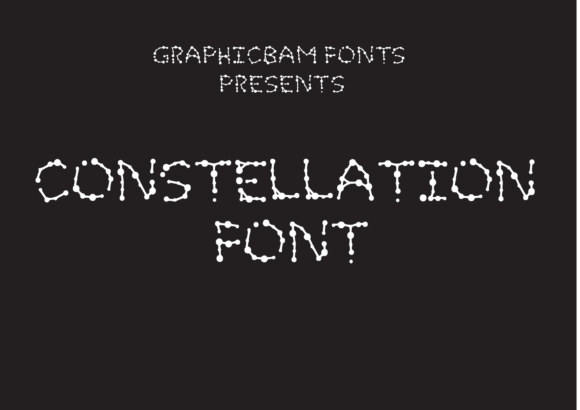
Are you seeking a font that ignites your creativity and propels your designs to new heights? Look no further than Constellation Font, the dazzling display font that transforms your words into a celestial spectacle. With its enchanting characters resembling a star-studded sky, this font will cast a spell on your audience, leaving them captivated by its ethereal beauty.
Crafted by the ingenious minds at GraphicsBam Fonts, Constellation Font is a masterpiece meticulously designed to elevate your designs. Its captivating glyphs, reminiscent of twinkling stars, bring a touch of whimsy and wonder to your creations. Whether you're crafting eye-catching logos, captivating social media posts, or enchanting invitations, Constellation Font will weave its magic, leaving a lasting impression on all who behold it.
With Constellation Font gracing your designs, you'll effortlessly create captivating small web ads that command attention like never before. Its distinctive characters, bursting with personality, will draw viewers in, compelling them to engage with your content. Unleash your imagination and watch as your designs transcend the ordinary, leaving a trail of stardust in their wake.